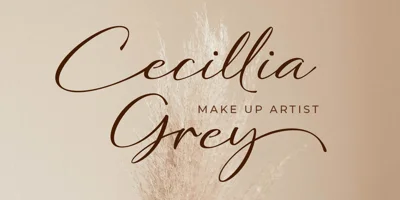
Mellanika Font
Mellanika Font is ideal for honey farm branding, organic sweetener packaging, natural wellness center signage, golden skincare product labels, artisan confectionery logos, and warm therapeutic practice materials.
Mellanika Font is exciting because it captures the golden sweetness and natural healing properties of honey, delivering a smoothly flowing typeface that embodies organic purity, golden warmth, and the gentle comfort of nature's sweetest treasures.
The Mellanika Font family includes sweet variations: Mellanika Light, Mellanika Regular, Mellanika Medium, Mellanika Bold, flowing alternates, and decorative elements inspired by honeycomb patterns and golden amber aesthetics.
Sweeten your designs with Mellanika Font, a golden-crafted typeface that brings honey sweetness and natural wellness to your most nourishing design projects. This flowing font excels in creating memorable branding for apiary businesses, natural health practitioners, organic food producers, and wellness organizations that celebrate the healing power and natural sweetness that honey brings to healthy living. The smoothly designed letterforms feature golden curves and honey-like proportions that simulate the flowing texture and warm glow of pure honey while ensuring excellent readability across all natural wellness and organic applications. Perfect for beekeeping education materials, natural remedy packaging, organic farmers market signage, and holistic healing practice communications that need to convey natural purity and healing sweetness, this font connects with health-conscious audiences who appreciate nature's gifts and organic living. Each character flows with golden smoothness, making every wellness message feel like a sweet reminder of nature's incredible ability to nourish and heal through pure, natural ingredients. Mellanika Font transforms wellness communications into sweet invitations that celebrate the healing power of nature while inspiring audiences to embrace organic living and appreciate the incredible gifts that bees and nature provide for human health and happiness.